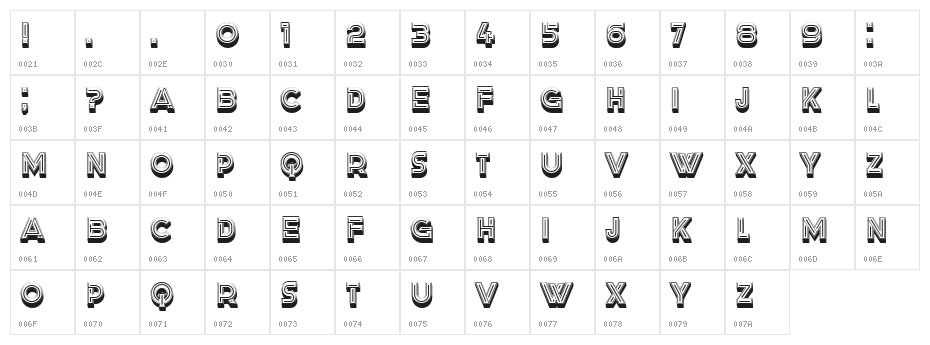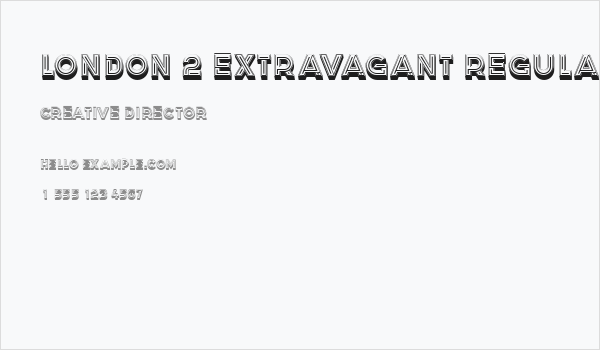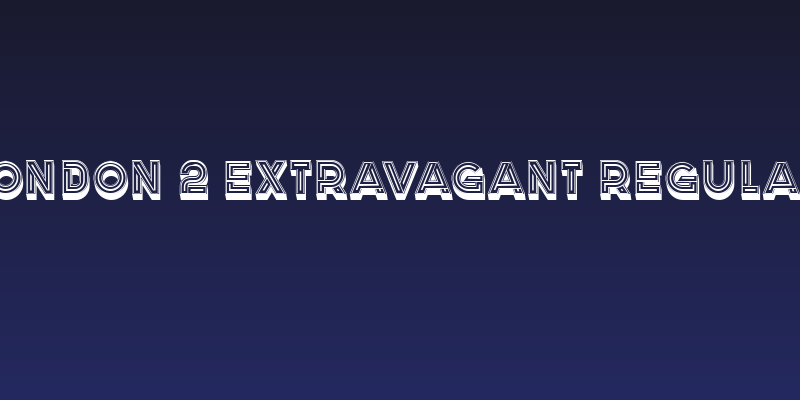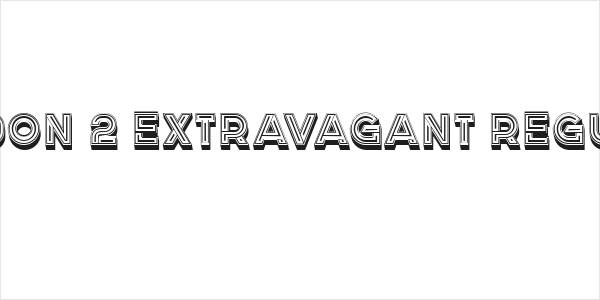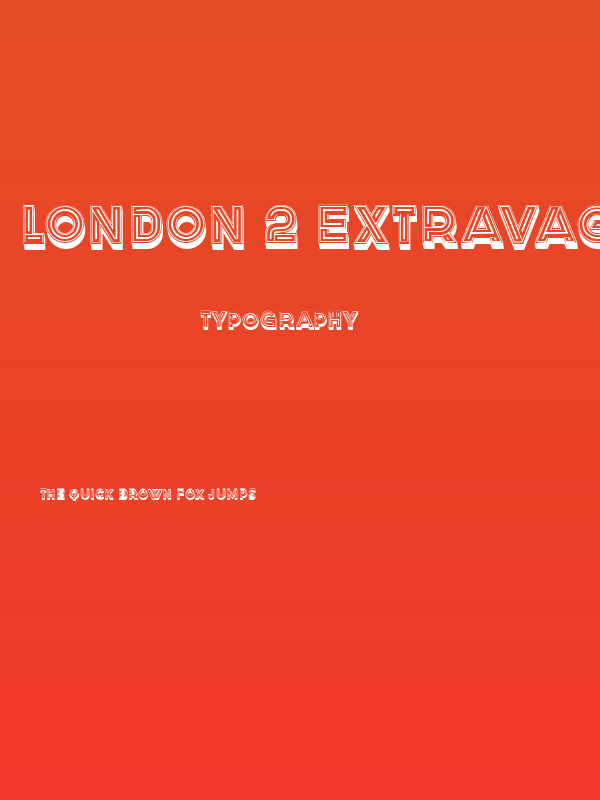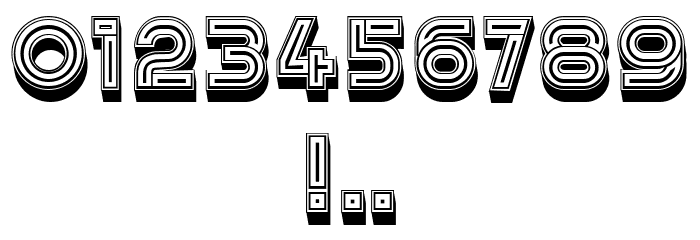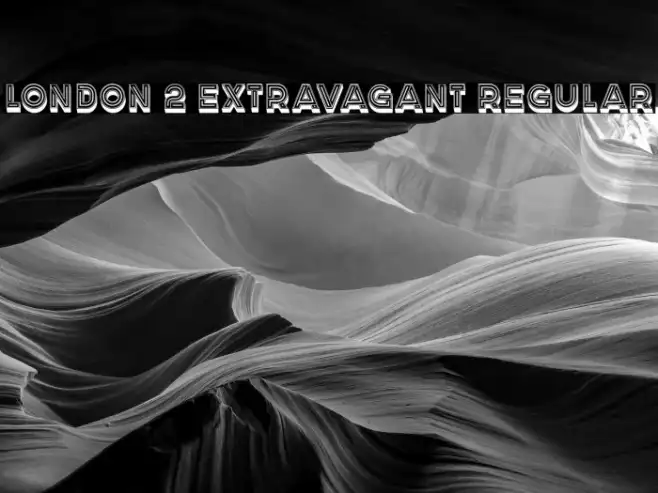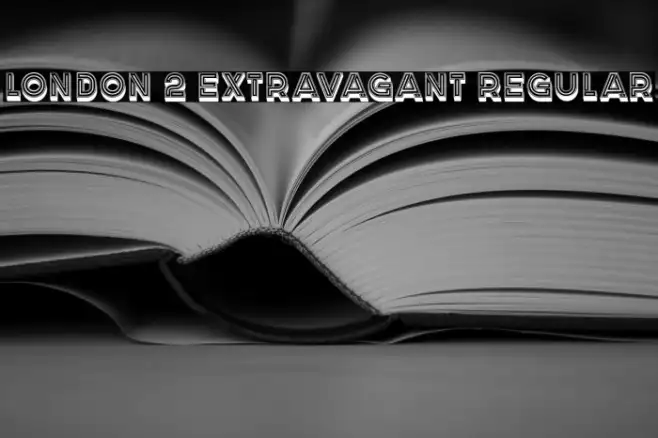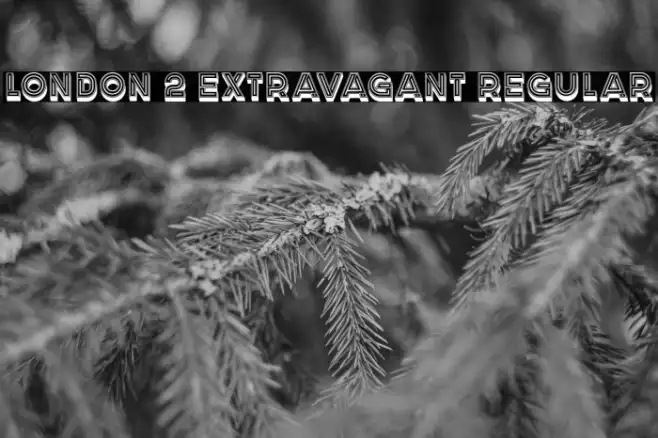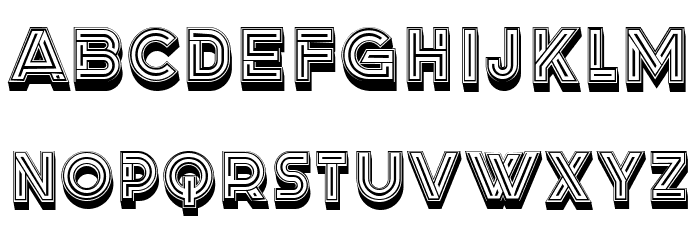
London 2 Extravagant Regular Font
London 2 Extravagant Regular Description
This font features a bold and extravagant design with a three-dimensional effect, characterized by thick outlines and shadowing that create a sense of depth. The uppercase letters are particularly striking, with geometric shapes and sharp angles that give them a modern and dynamic appearance. The numbers and special characters follow the same aesthetic, ensuring consistency across all elements. The font's style is both decorative and impactful, making it suitable for attention-grabbing headlines and creative projects.